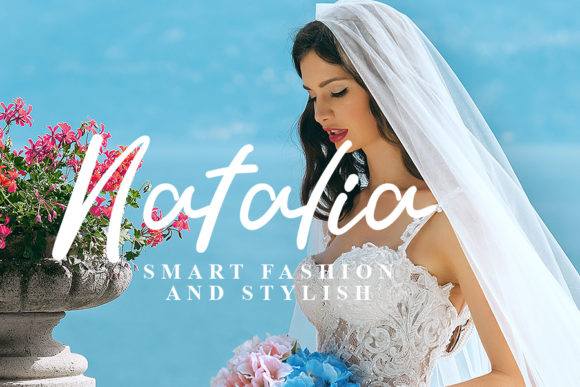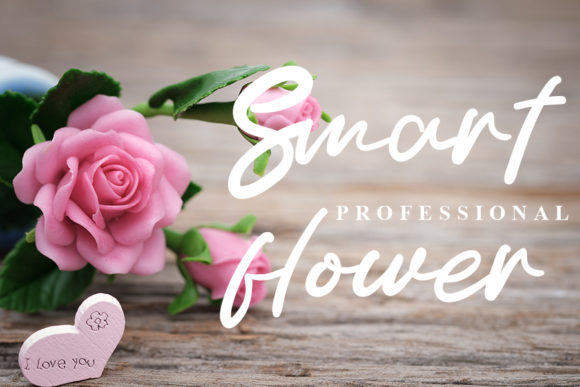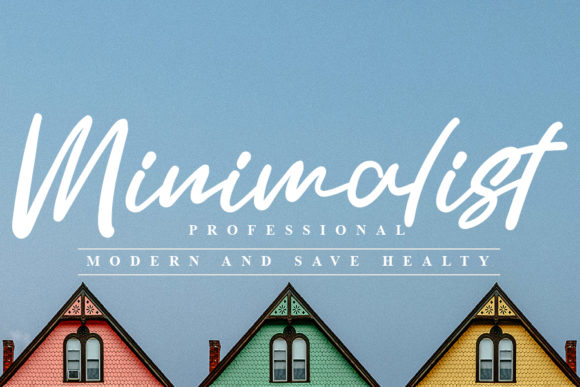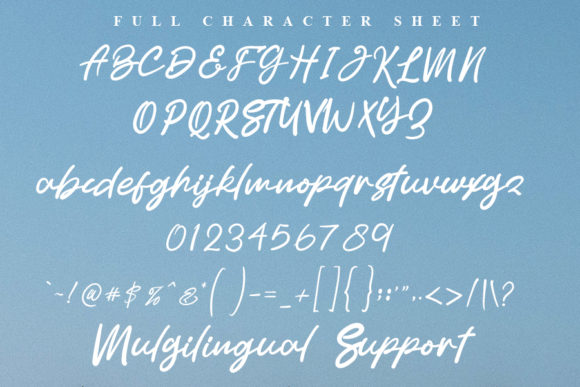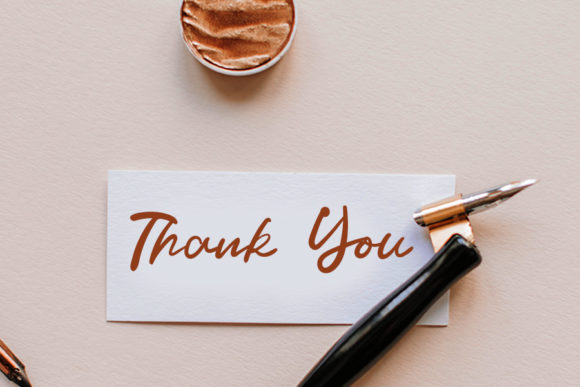
The Perfect Font for a Special Day
Do you remember the moment when you decided to create the perfect birthday invitation for your best friend? The excitement, the pressure, and the desire to make it truly special? That’s exactly the feeling we get when we talk about the Birthday Font, a beautiful and relaxed handwritten font that will make your design ideas shine.
| 👤 Author | NYA Letter |
Created with the help of a neat brush, this font is perfect for any occasion that requires a touch of warmth and personality. Whether you’re designing a birthday card, a party invitation, or a special gift, the Birthday Font will become your top choice. Its unique style and feel make it valuable for designers who want to add a personal touch to their work.
With the Birthday Font, you’ll be able to create designs that are truly special and meaningful, making it a valuable addition to any designer’s toolkit.
- Unique Characteristics: The Birthday Font features a playful, cursive design with decorative flourishes, making it perfect for adding a celebratory touch to birthday invitations, cards, and other party materials.
- Script and Calligraphy: The font includes both script and calligraphy styles, allowing users to choose the perfect look for their design needs.
Birthday Font Review
Overall, I’m underwhelmed by the “Birthday Font”. While it has some redeeming qualities, it falls short in several areas.
- Cute, playful design – perfect for casual birthday invitations or social media posts.
- Good legibility, even at smaller font sizes.
- Fun, celebratory feel that’s sure to put a smile on users’ faces.
- Limited character set – may not be suitable for longer blocks of text.
- Not ideal for formal or professional applications.
- Lack of bold or italic variations, which can make it difficult to emphasize important information.
- Not fully scalable, which may cause issues when using it for large or small font sizes.
While the “Birthday Font” has its charms, its limitations make it a less-than-ideal choice for most design applications. If you’re looking for a font that’s perfect for casual, celebratory uses, it might be worth considering. However, for more formal or complex projects, you may want to look elsewhere.
The Birthday Font is perfect for creating birthday invitations, cards, posters, and presentations. It can also be used to add a personal touch to birthday social media posts, emails, or messages.
The Birthday Font includes a wide range of characters, including uppercase and lowercase letters, numbers, punctuation marks, and special characters. It also includes a set of decorative characters and symbols, making it suitable for a variety of design applications. The font’s character set includes: